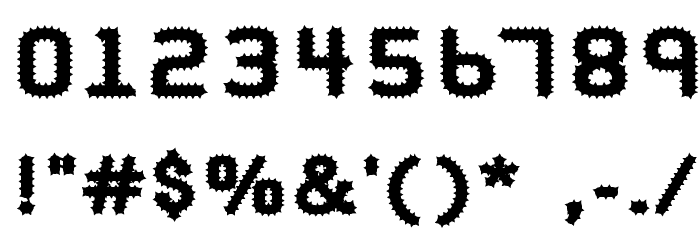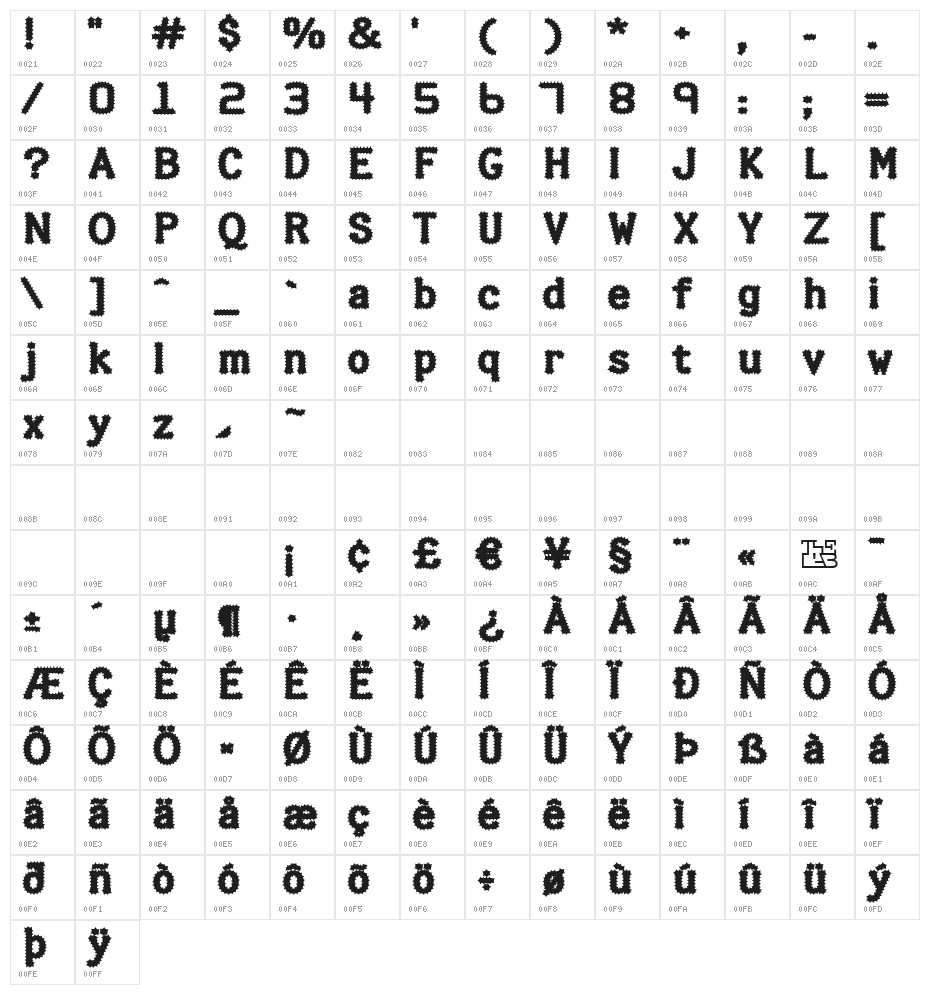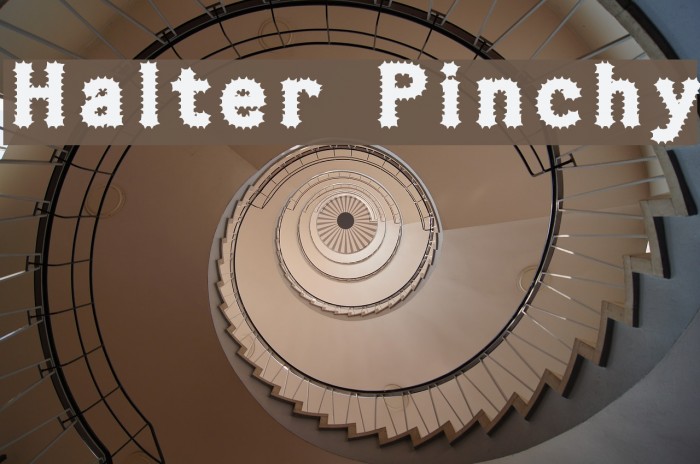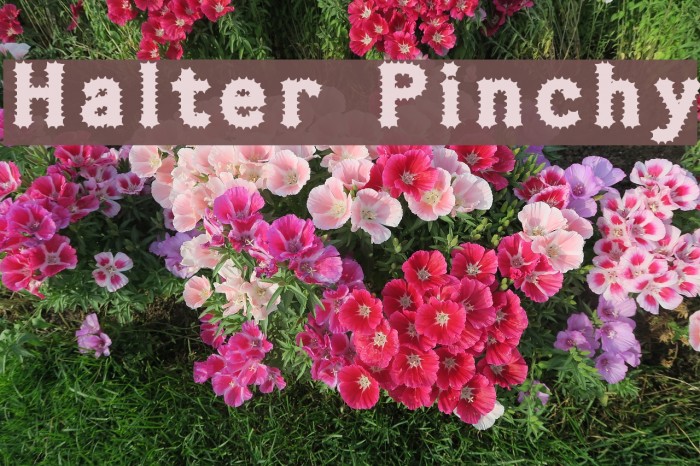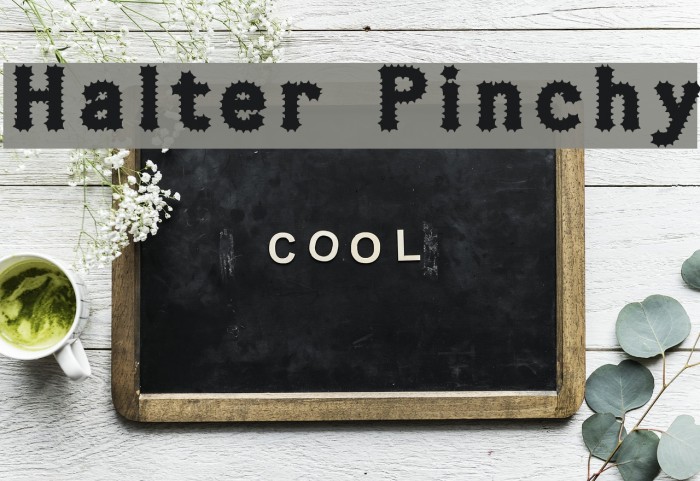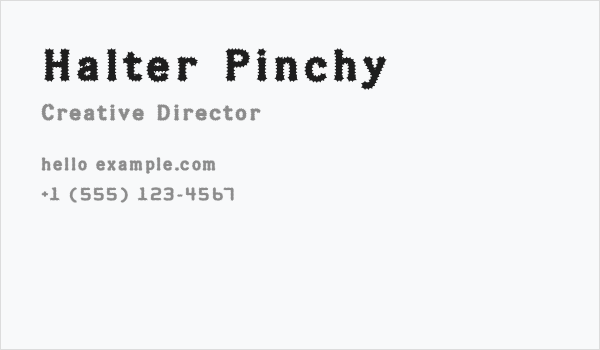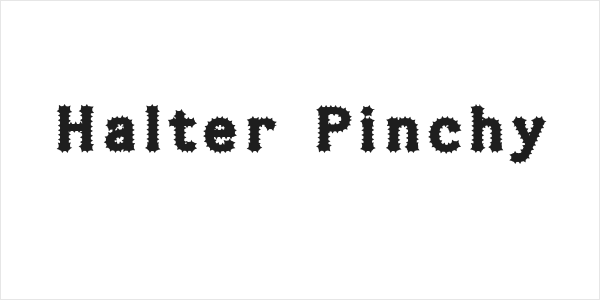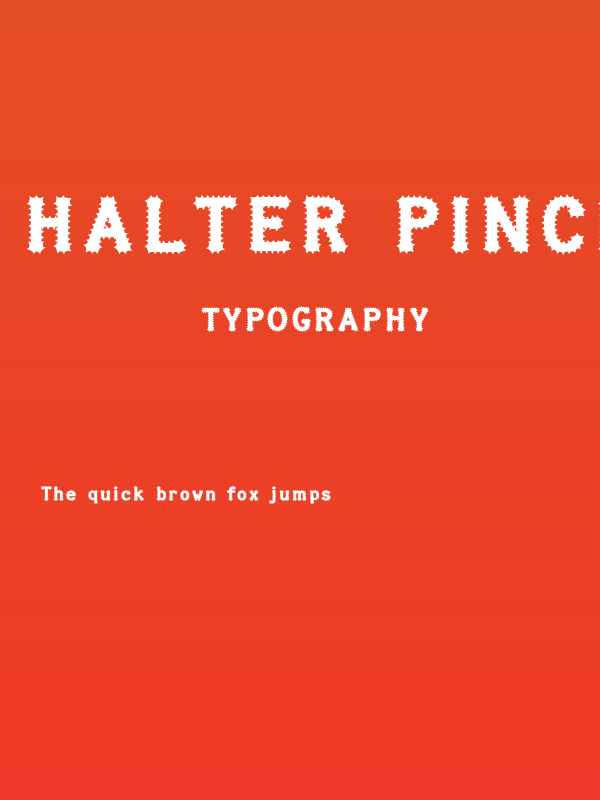
Halter Pinchy Font
Halter Pinchy Description
This font features a unique, jagged design that gives each character a spiky, textured appearance. The bold, playful style is reminiscent of a decorative or display typeface, making it stand out with its distinctive edge. The uppercase and lowercase letters maintain a consistent weight, while the numbers and special characters follow the same design principle, ensuring uniformity across the typeface. The font's boldness and decorative nature make it ideal for eye-catching designs.
| Proposed Projects | Ideal for poster designs, album covers, branding projects, and any creative work that requires a bold, standout typeface. |